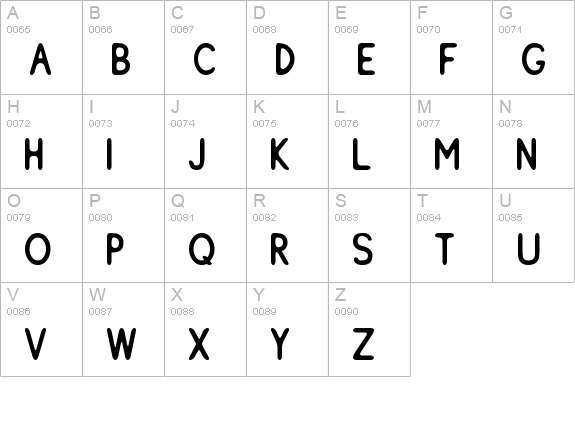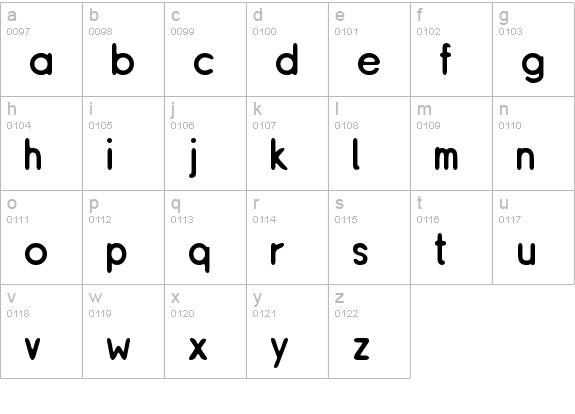
ReSiple Rounded Font Details
ReSiple Rounded is a modern and versatile font that brings a touch of sophistication to any project. With its smooth curves and rounded edges, this font exudes a sense of elegance and friendliness. Whether you're designing a logo, creating a website, or crafting a flyer, ReSiple Rounded is the perfect choice to add a touch of professionalism and style. This font is not only visually stunning but also incredibly functional. Its clean and clear letterforms ensure readability, making it suitable for a wide range of applications. From headlines to body text, ReSiple Rounded offers excellent legibility in both print and digital media. One of the best things about ReSiple Rounded is that it is freely available to download at FontsMarket.com. This means that you can enjoy the beauty and versatility of this font without any cost. Whether you're a professional designer or an aspiring creator, having access to high-quality fonts like ReSiple Rounded can make a significant difference in your work. So go ahead and explore the endless possibilities with ReSiple Rounded. Whether you use it for personal or commercial projects, this font is sure to elevate your designs and make them stand out from the crowd. Embrace the elegance and versatility of ReSiple Rounded and see your creativity soar to new heights.